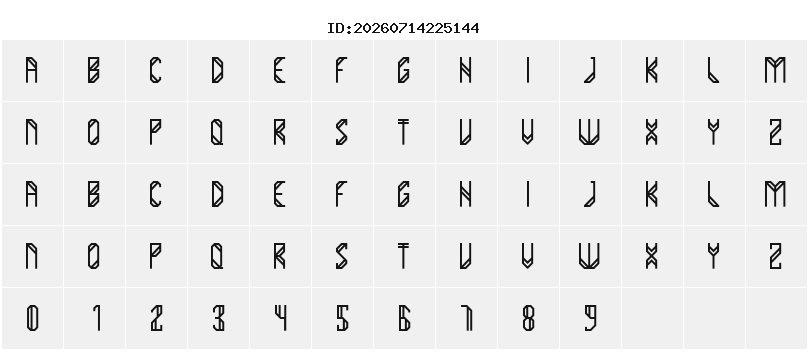
• Font Name: Yuma
• Designer: Gumpita Rahayu
• Description: Yuma Regular is a font by Gumpita Rahayu, designed by Gumpita Rahayu in 2013.
Yuma.otf is a modern, elegant sans-serif font designed for ultimate readability and visual harmony. Perfect for branding, headlines, web design, and print materials.